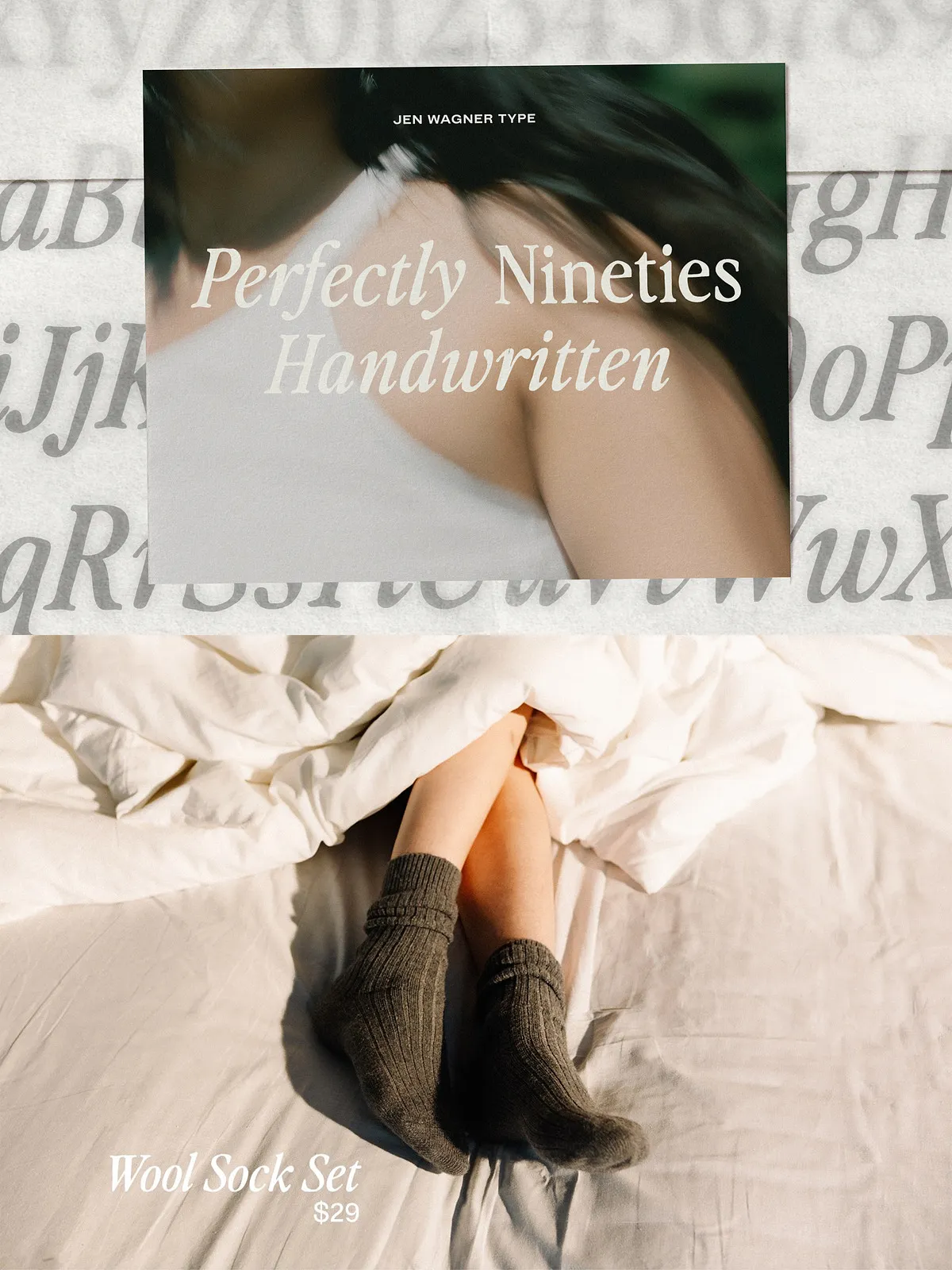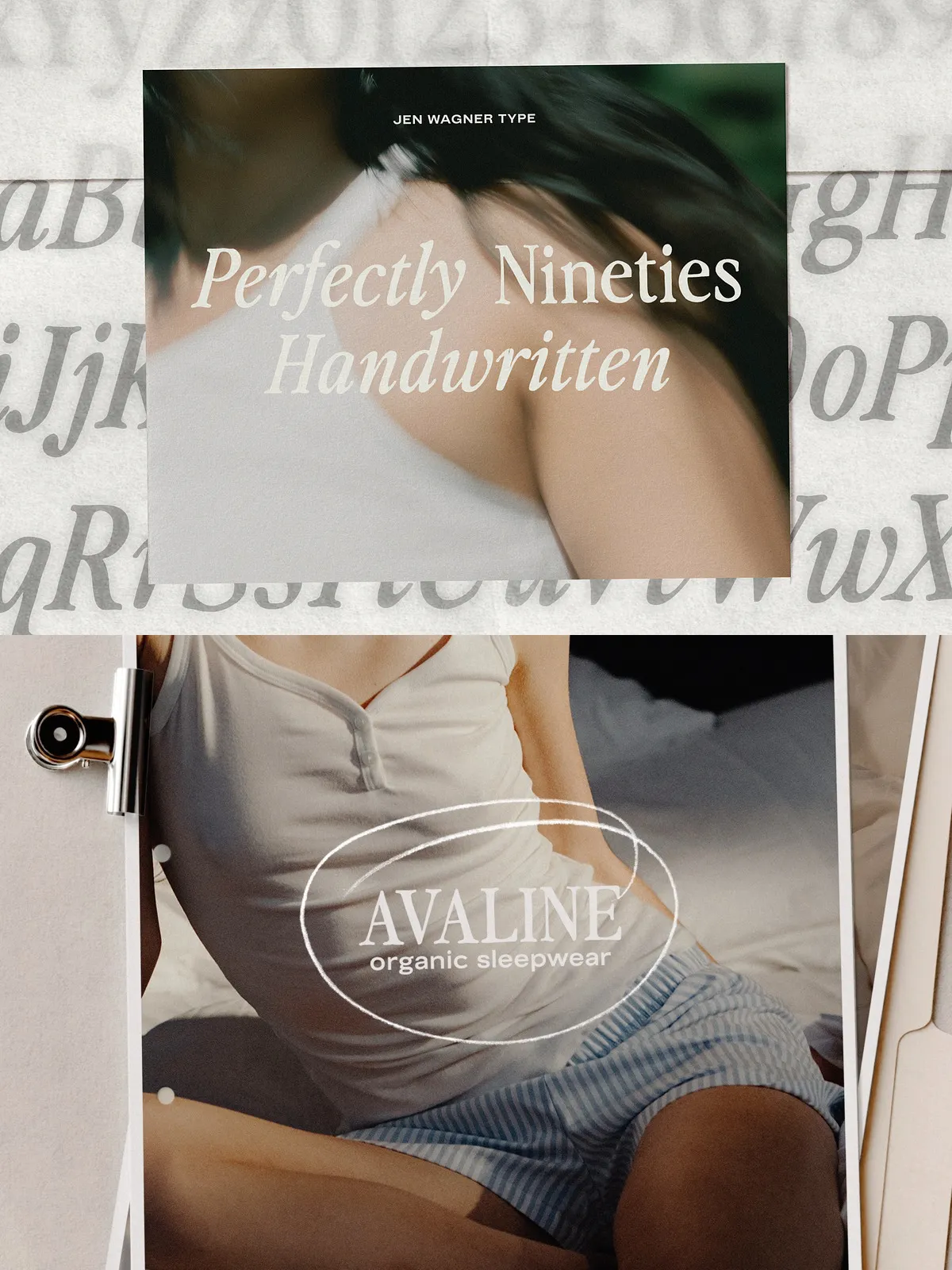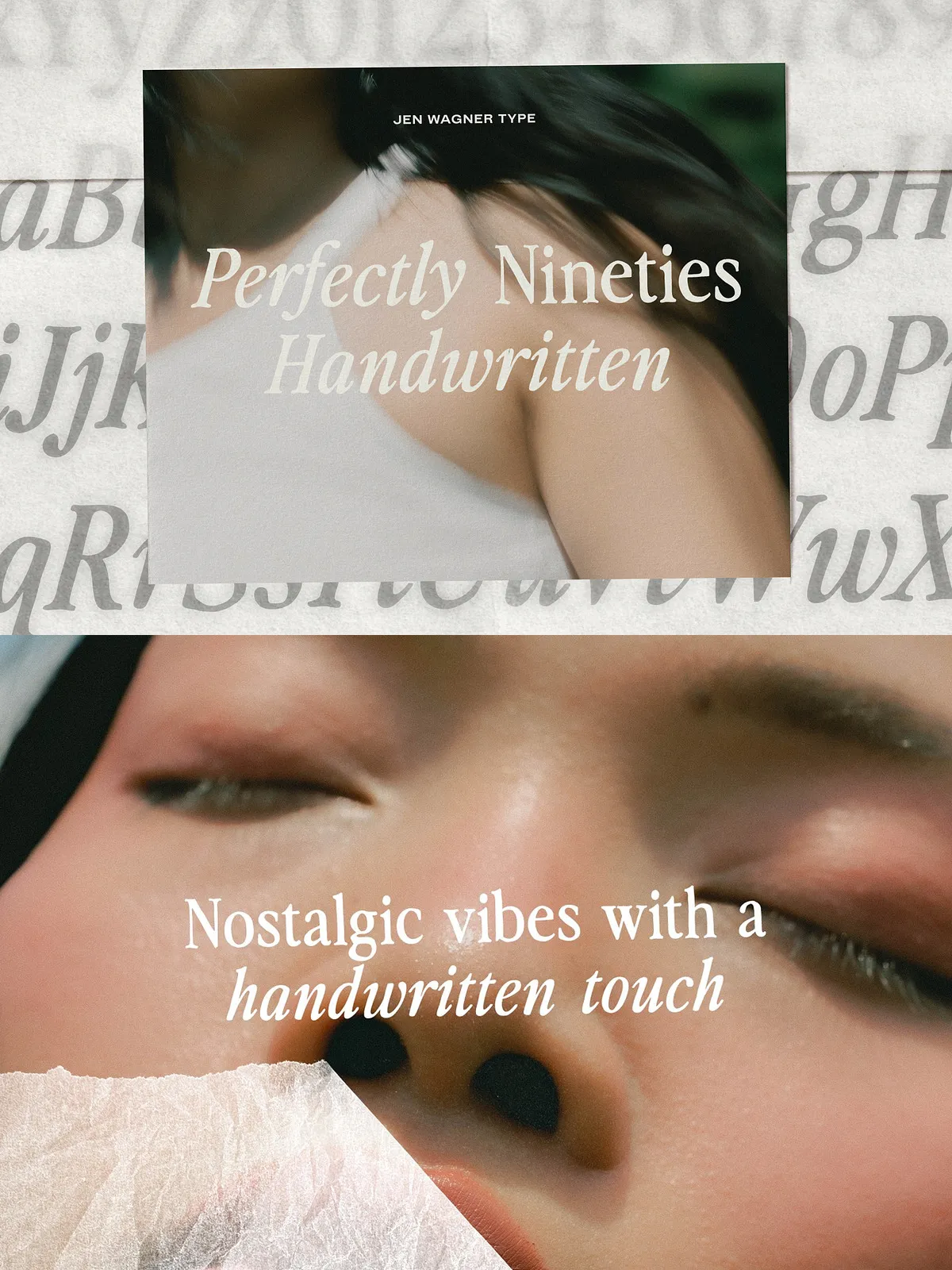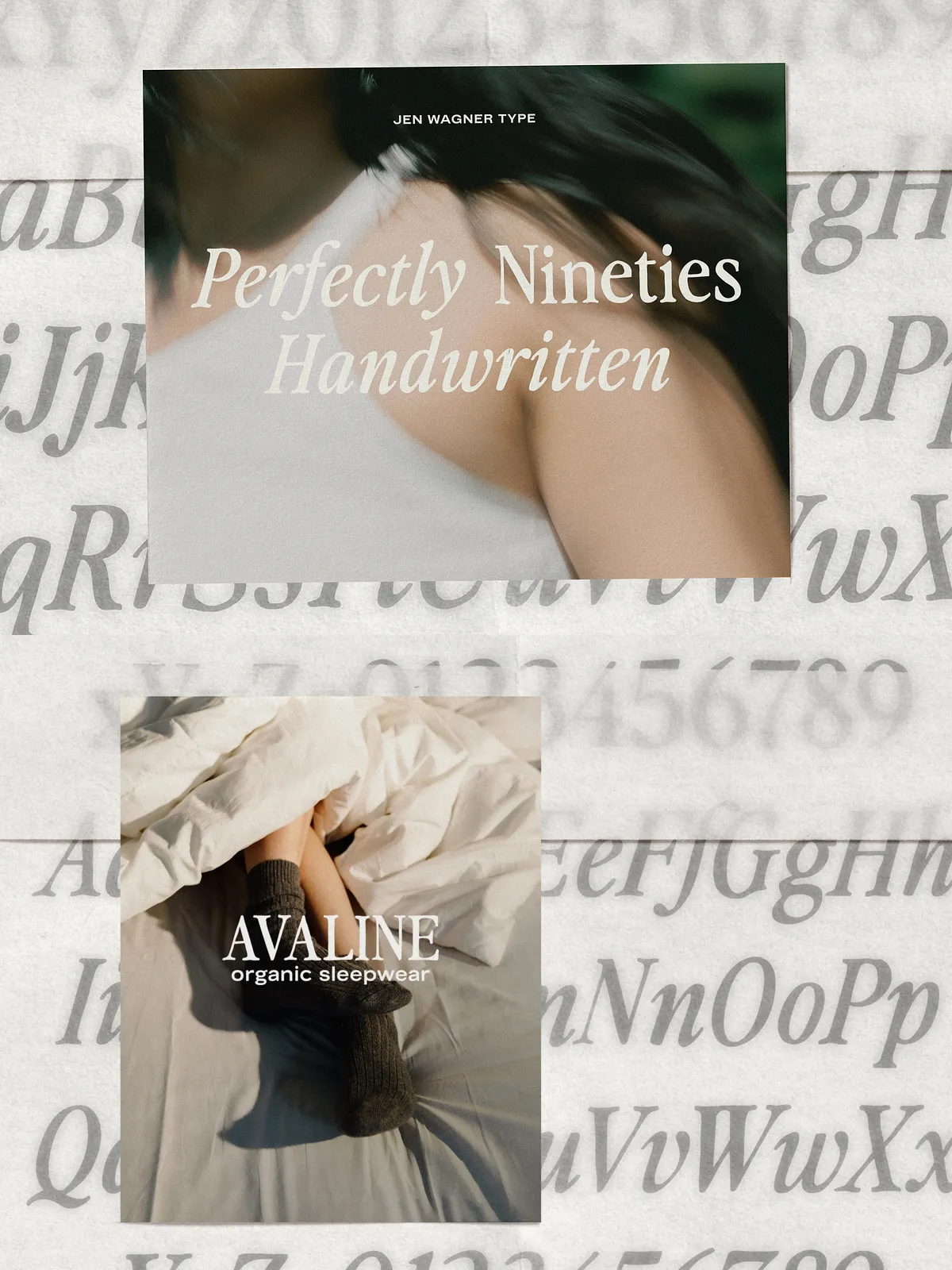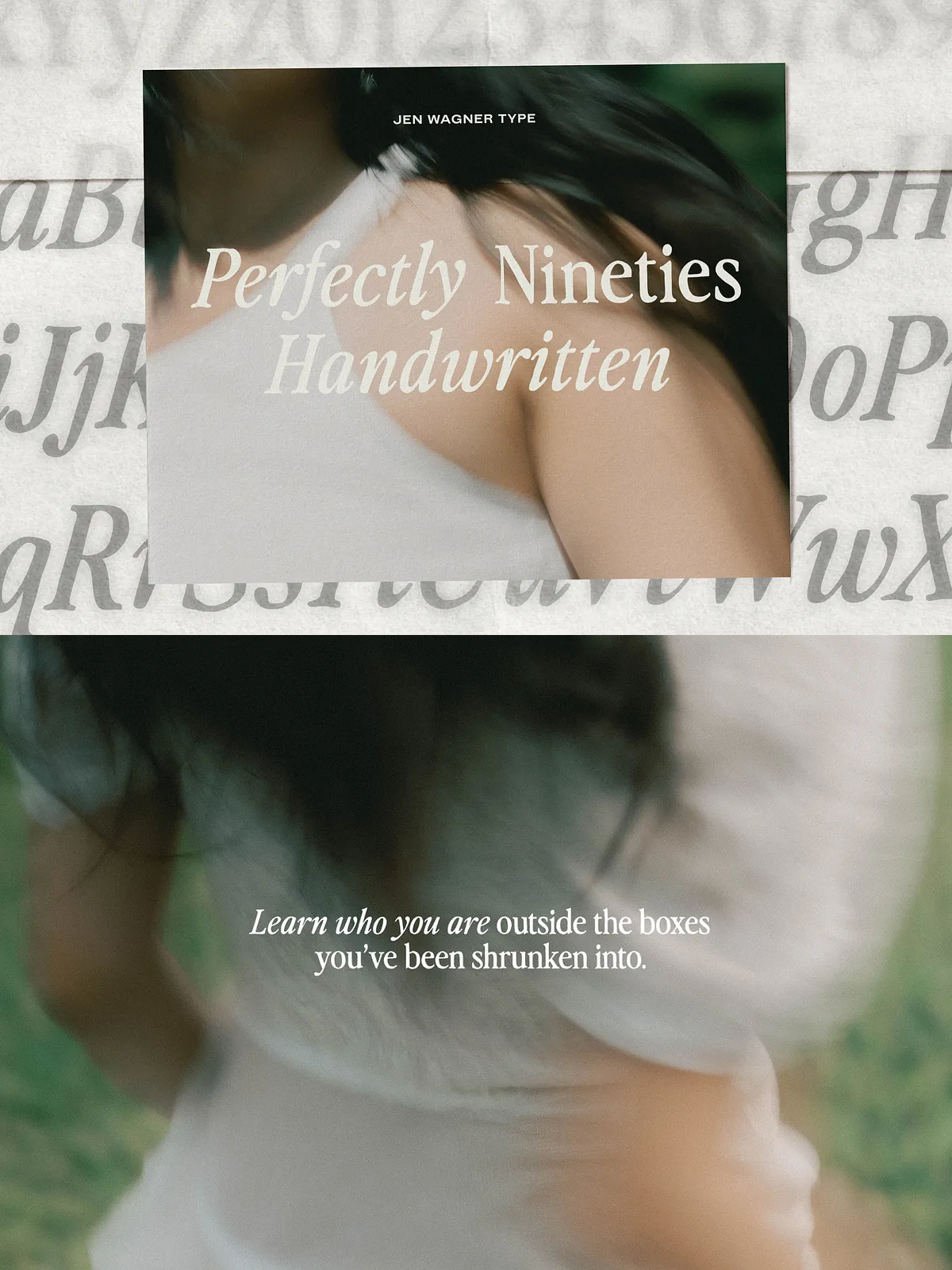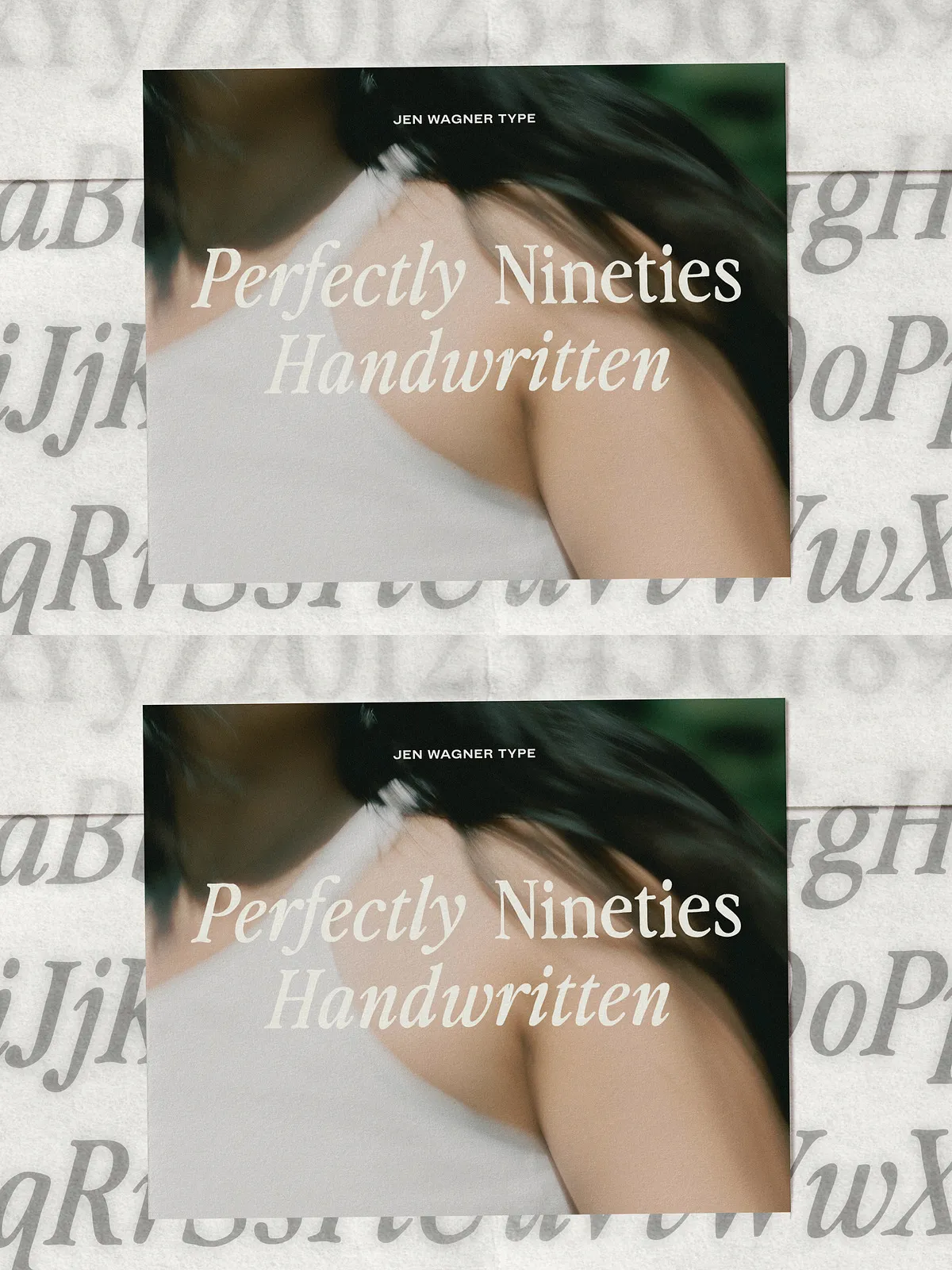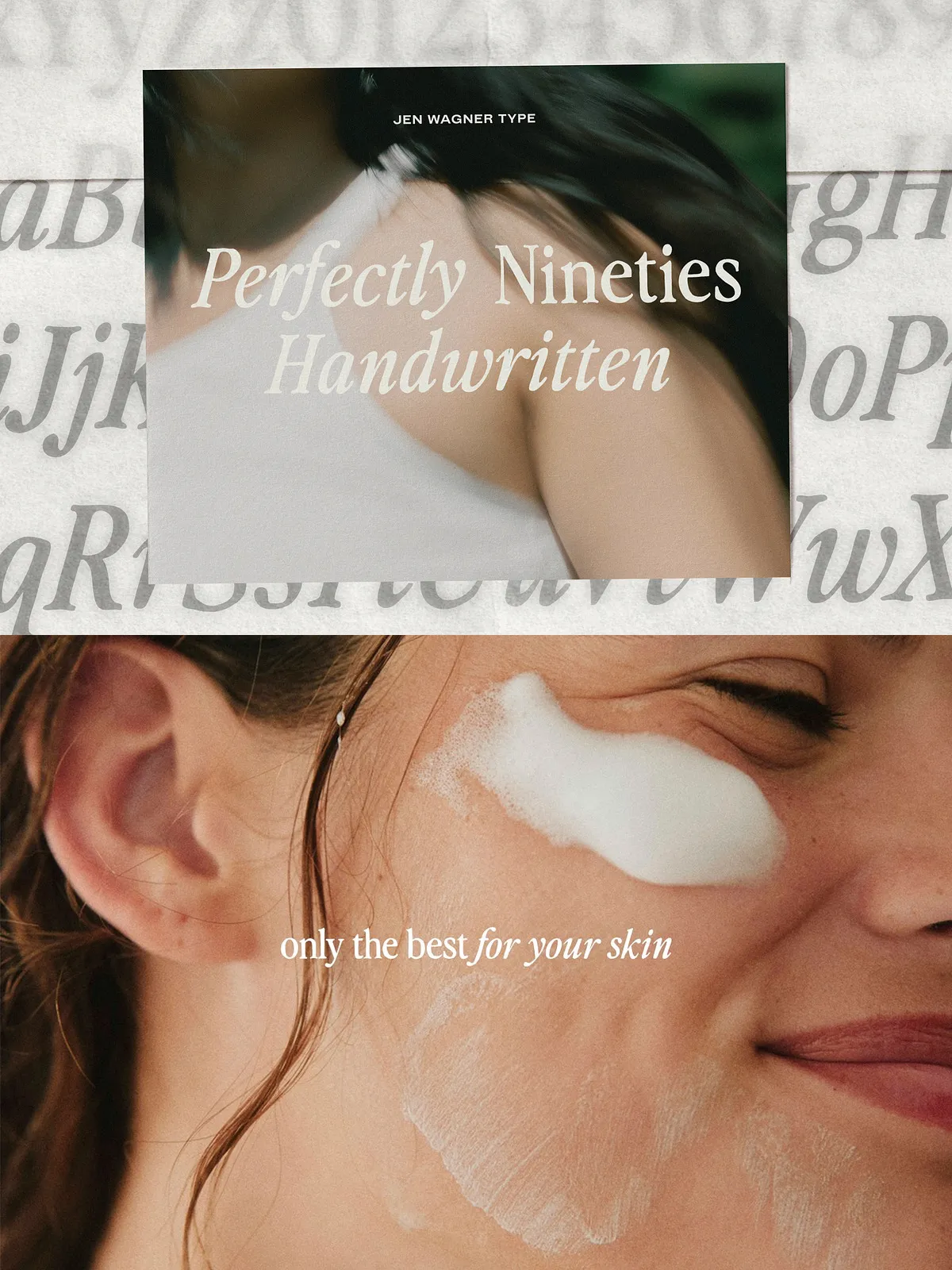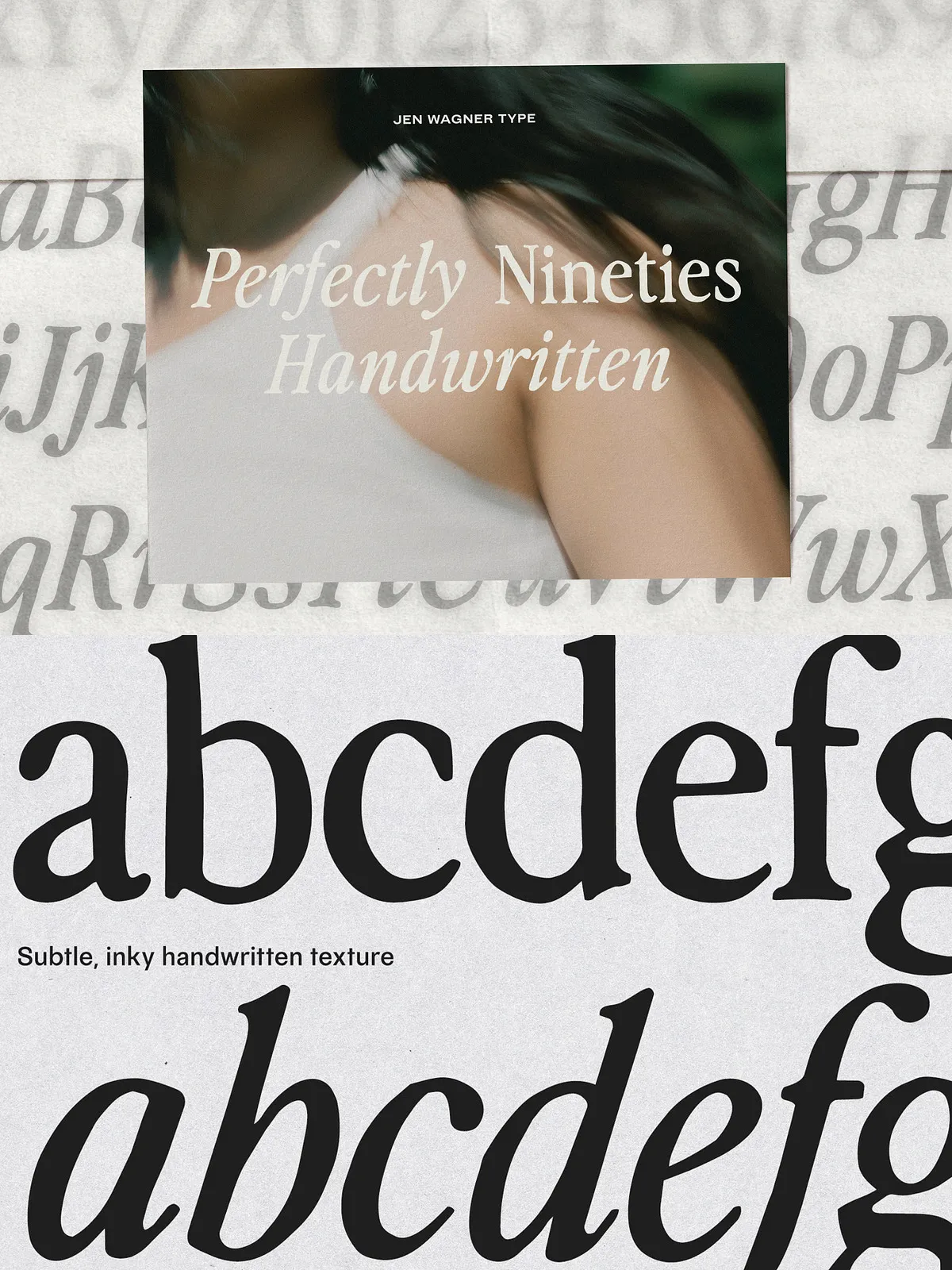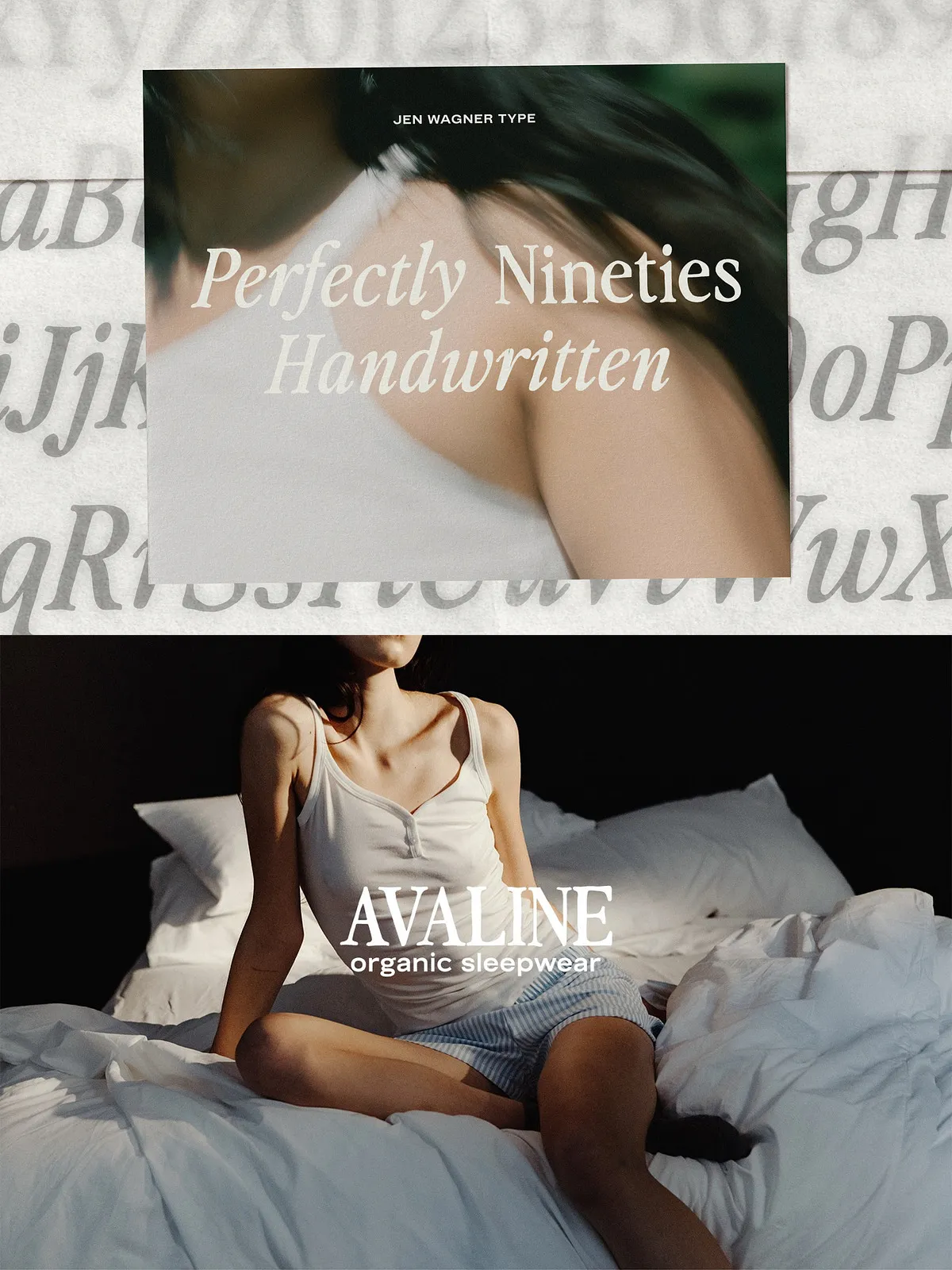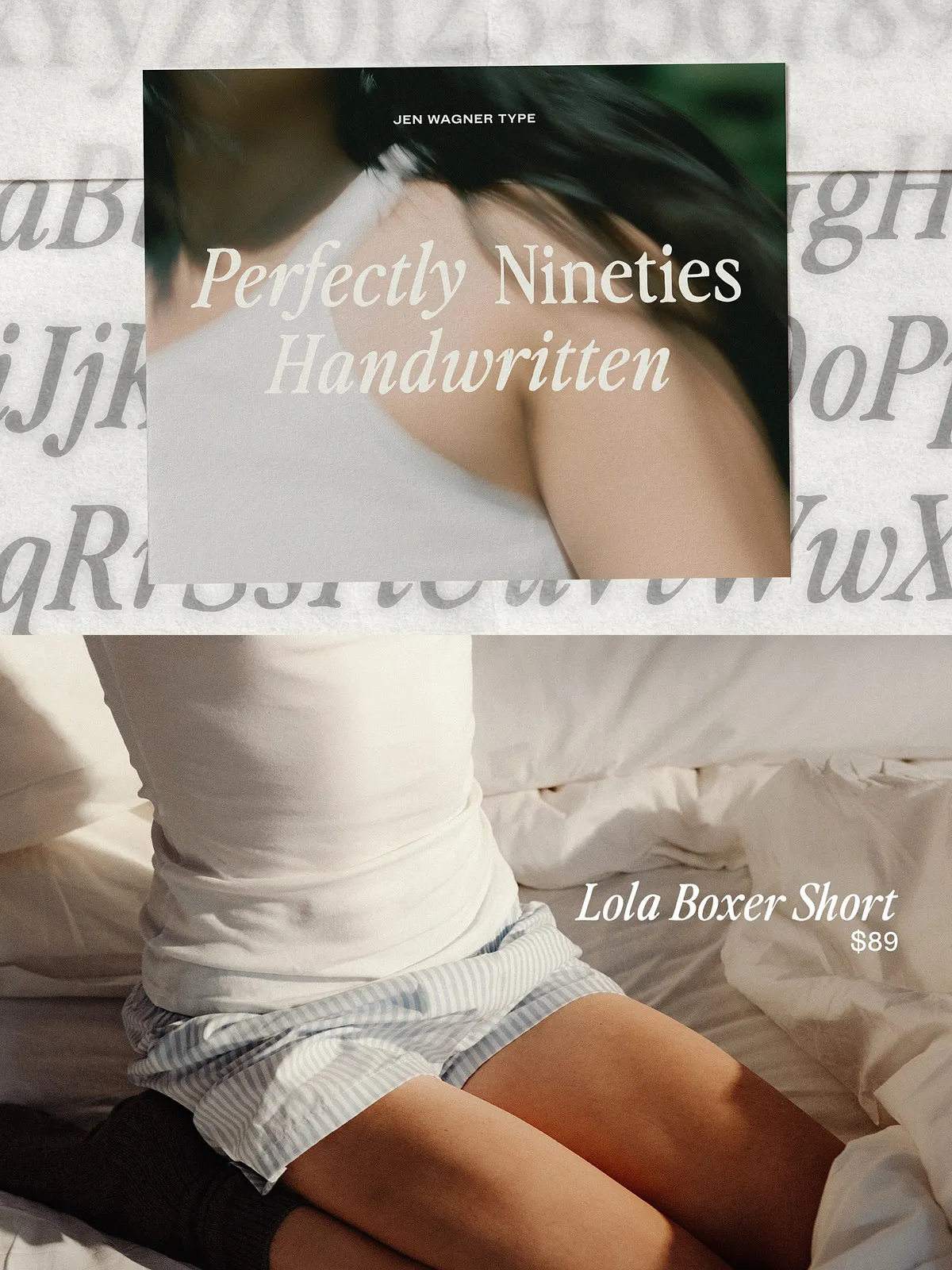
Perfectly Nineties Handwritten
Perfectly Nineties Handwritten serves as the authentic handwritten companion to your most-loved typeface family. This single-weight display font captures the raw, unpolished charm of ink meeting paper, offering a texture that digital perfection often lacks. Designed as a natural extension of the best-selling Perfectly Nineties collection, this script typeface retains the warmth, nostalgia, and elegance that defined the original while introducing a layer of organic humanity. In a design landscape increasingly saturated with geometric precision and AI-generated polish, Perfectly Nineties Handwritten offers a refreshing return to craft. It provides the kind of imperfect, tactile quality that resonates deeply with modern audiences seeking authenticity and connection in their visual communication.
Key Features and Design Philosophy
Inky Texture and Organic Imperfection
The defining characteristic of Perfectly Nineties Handwritten is its genuine inky texture. Each letterform carries subtle variations that mimic the behavior of a marker actually touching paper. You will notice a softly irregular baseline and slight ink bleeds that add depth and character to every word. These details are not random; they are carefully crafted to create an atmosphere of intentional humanity. The font allows designers to infuse their projects with a sense of warmth and personal touch that feels considered rather than casual. This texture does the atmospheric heavy lifting, allowing the typography to stand on its own as a powerful design element.
Roman and Italic Expressive Range
While maintaining a single-weight structure, the inclusion of both Roman and italic styles provides significant expressive range. The Roman style offers a stable, grounded presence, while the italic style introduces a dynamic flow and sense of movement. This versatility allows the font to adapt to various contexts, from static headlines to more dynamic, flowing compositions. The contrast between the two styles enables designers to create visual interest and hierarchy within a single typeface, making it a robust tool for brand identity and editorial design.
Smart Alternatives and Functionality
Functionality meets form in this typeface. Perfectly Nineties Handwritten includes coded contextual alternates designed to prevent repetitive letter patterns, ensuring that your text looks natural and varied. The font also features alternates for every letter and number, providing ample options for customization and detail. This technical sophistication ensures that the font performs beautifully in professional workflows, from web headers to high-resolution print pieces, without compromising on its artistic integrity.
Ideal Applications for Modern Brands
Lifestyle and Beauty Branding
When set large on lifestyle brand packaging, Perfectly Nineties Handwritten reads as a sign of consideration and care. It brings a human touch to products that require a personal connection with the consumer. For beauty brands, this font introduces warmth without sacrificing elegance. It positions products as thoughtful and crafted, appealing to customers who value authenticity and quality. Use it for product names, taglines, and packaging details to elevate the perceived value of your brand.
Editorial and Print Design
In editorial layouts, the nostalgic pull of Perfectly Nineties Handwritten creates a sophisticated and engaging narrative. It works beautifully for magazine covers, article headers, and spread titles. The font’s ability to evoke a sense of nostalgia while maintaining a modern edge makes it perfect for contemporary editorial design. Pair it with clean sans-serifs or monospaced fonts to create a striking contrast that highlights the handwritten quality as a deliberate luxury choice.
Digital and Social Media Presence
Perfectly Nineties Handwritten is equally effective in the digital space. Use it for social media graphics, Instagram stories, and web banners. The font’s distinct texture and style help content stand out in crowded feeds, grabbing attention and encouraging engagement. It is ideal for web headers that need to make a strong first impression, adding a layer of personality and warmth to your online presence. The font’s versatility ensures it looks crisp and clear on any device, from mobile screens to large desktop monitors.
Luxury and High-End Applications
The contrast created by pairing Perfectly Nineties Handwritten with clean, geometric typefaces is powerful. This combination reads as intentional luxury, where the handwritten element provides a human contrast to the structural precision of the companion font. Use this pairing for high-end print pieces, luxury stationery, and premium branding materials. The interplay between the organic and the geometric creates a visual dialogue that is both striking and sophisticated.
Comprehensive Character Support
The font package includes a full character set with Roman and italic styles, providing extensive options for Latin-based languages. This ensures compatibility with a wide range of design projects and international markets. The detailed alternates for letters and numbers allow for fine-tuned control over typography, ensuring that every design element can be customized to fit your specific needs.